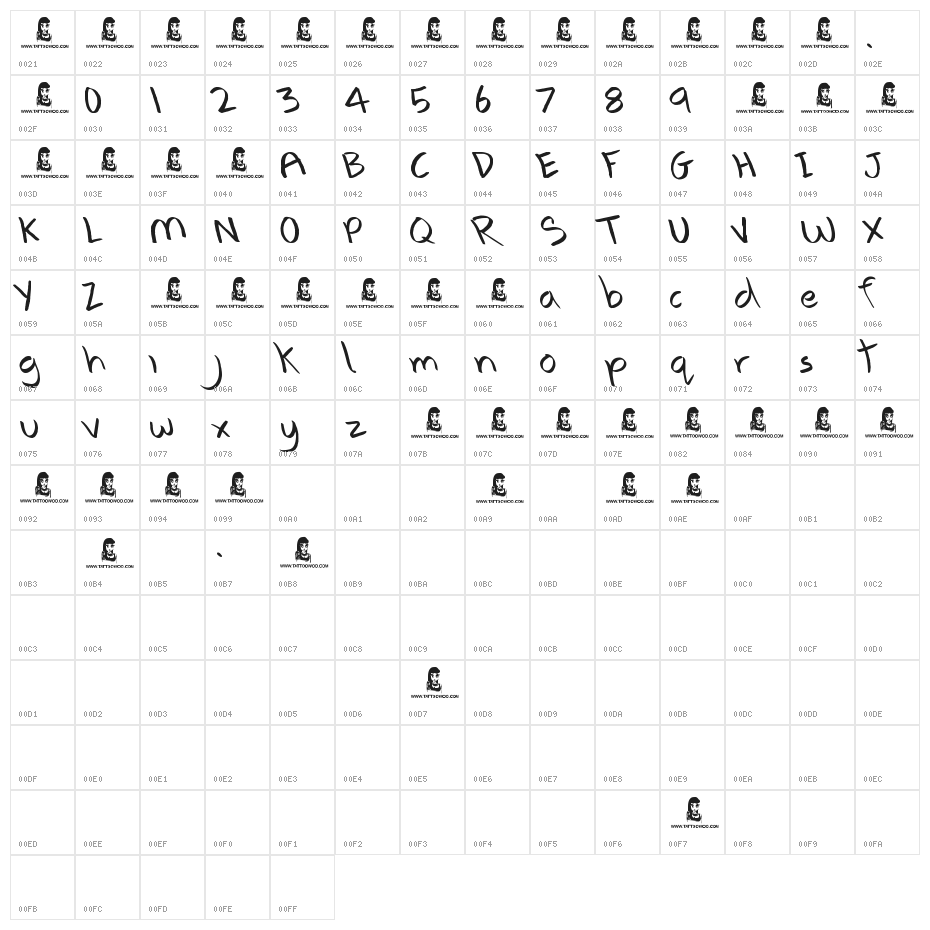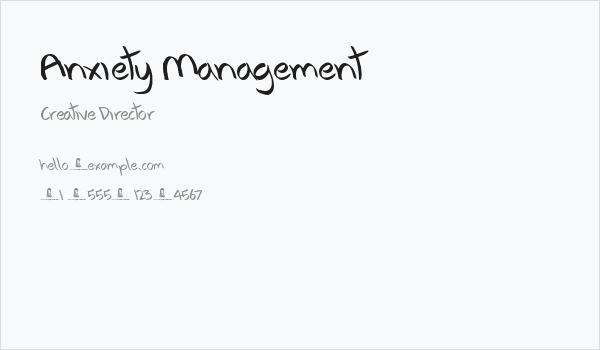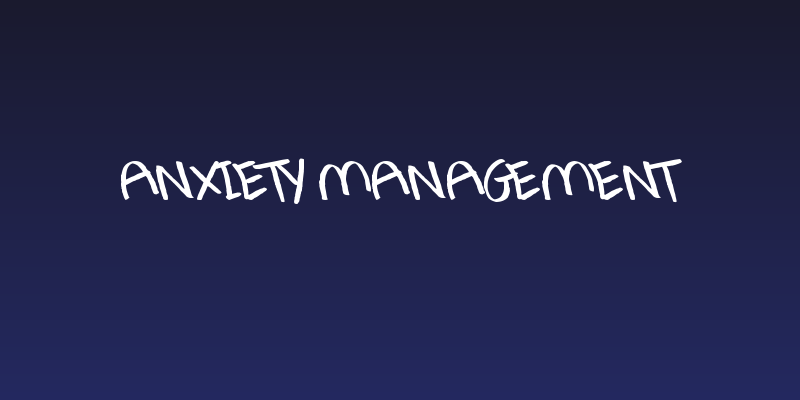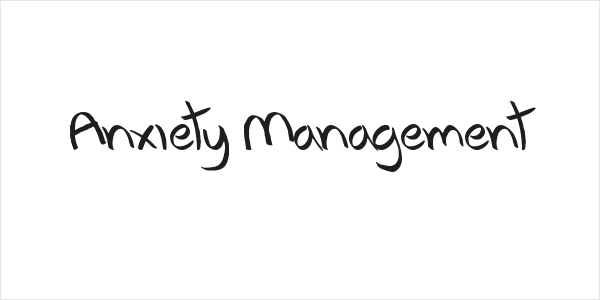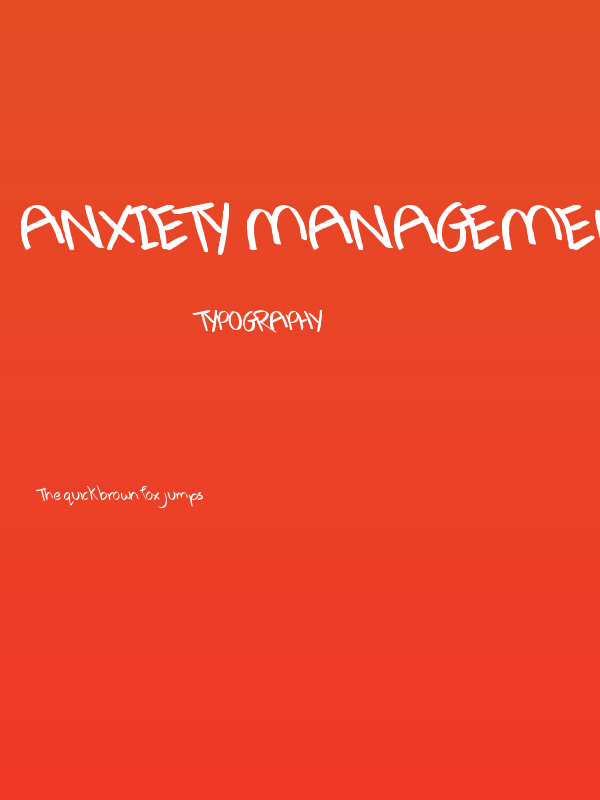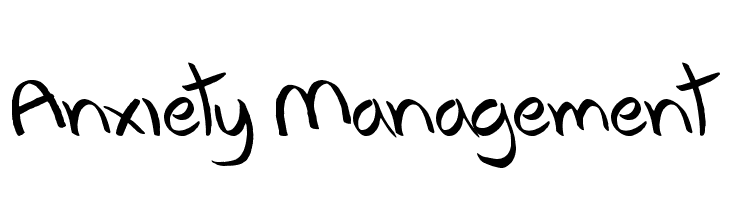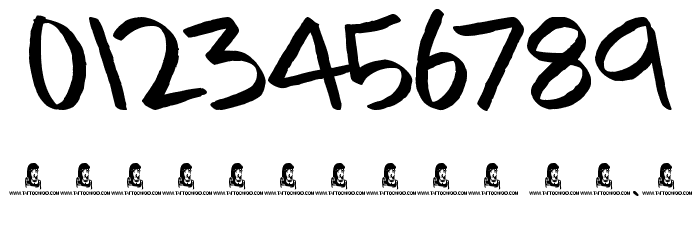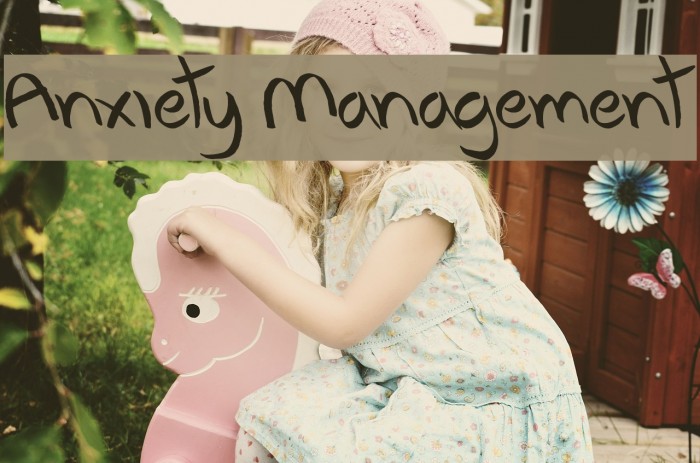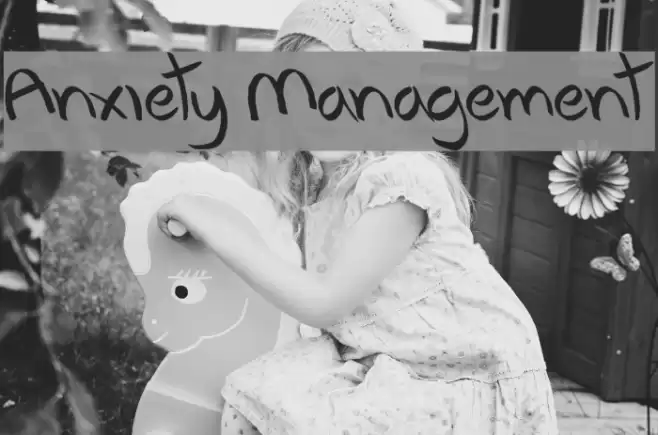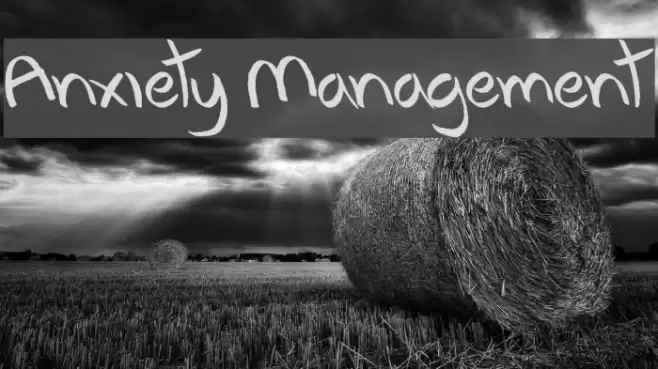
Anxiety Management Font
Anxiety Management Description
This font features a playful and energetic handwritten style, characterized by its bold and slightly irregular strokes. The letters have a casual, informal appearance, with a dynamic flow that suggests movement and spontaneity. The uppercase and lowercase letters maintain a consistent style, with rounded edges and a slight slant, giving the font a friendly and approachable feel. The numbers and special characters follow the same design principles, ensuring a cohesive look across all elements. This font's unique personality makes it suitable for projects that require a touch of creativity and individuality.
| Overall Style | Playful, Energetic |
| Use Case | Headlines, Logos, Creative projects |
| Proposed Projects | Ideal for creative projects such as greeting cards, posters, children's books, and branding materials that require a personal touch. |